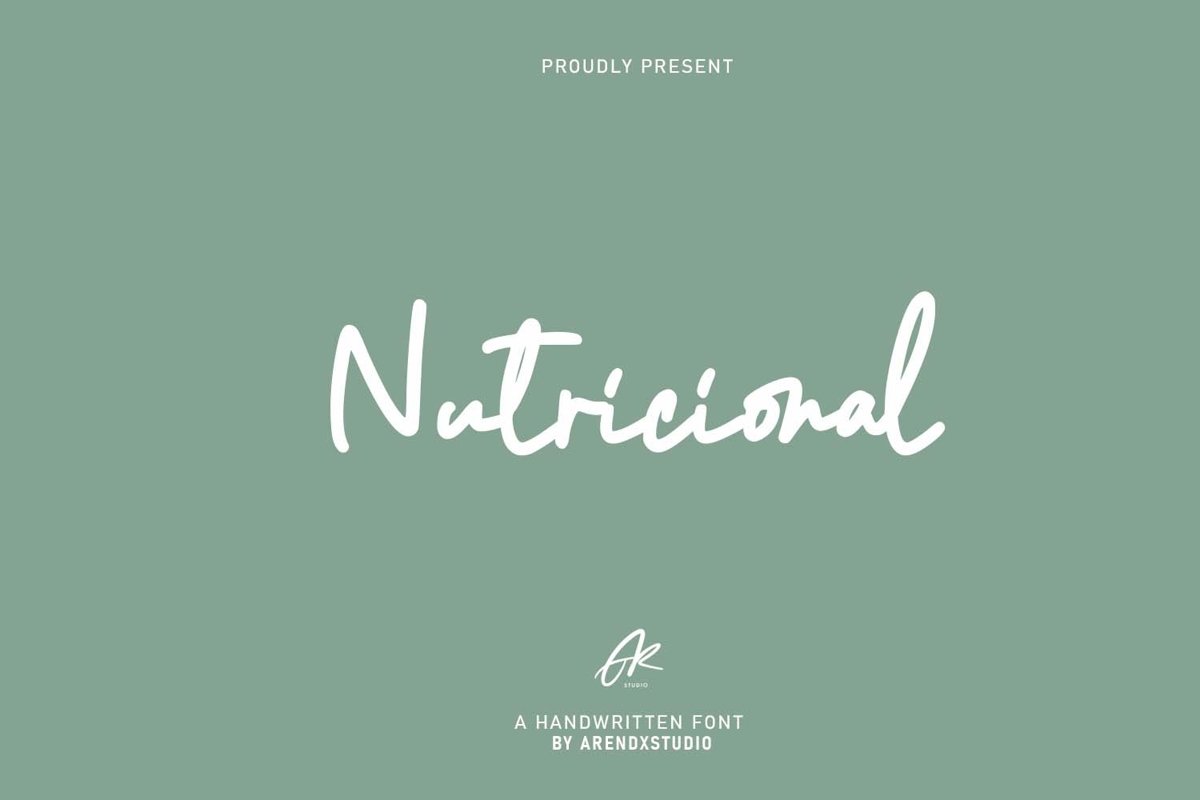
Nutricional Monoline Script
Nutricional
Nutricional came with opentype features such stylistic alternates, stylistic sets & ligatures good for logotype, poster, badge, book cover, tshirt design, packaging and any more